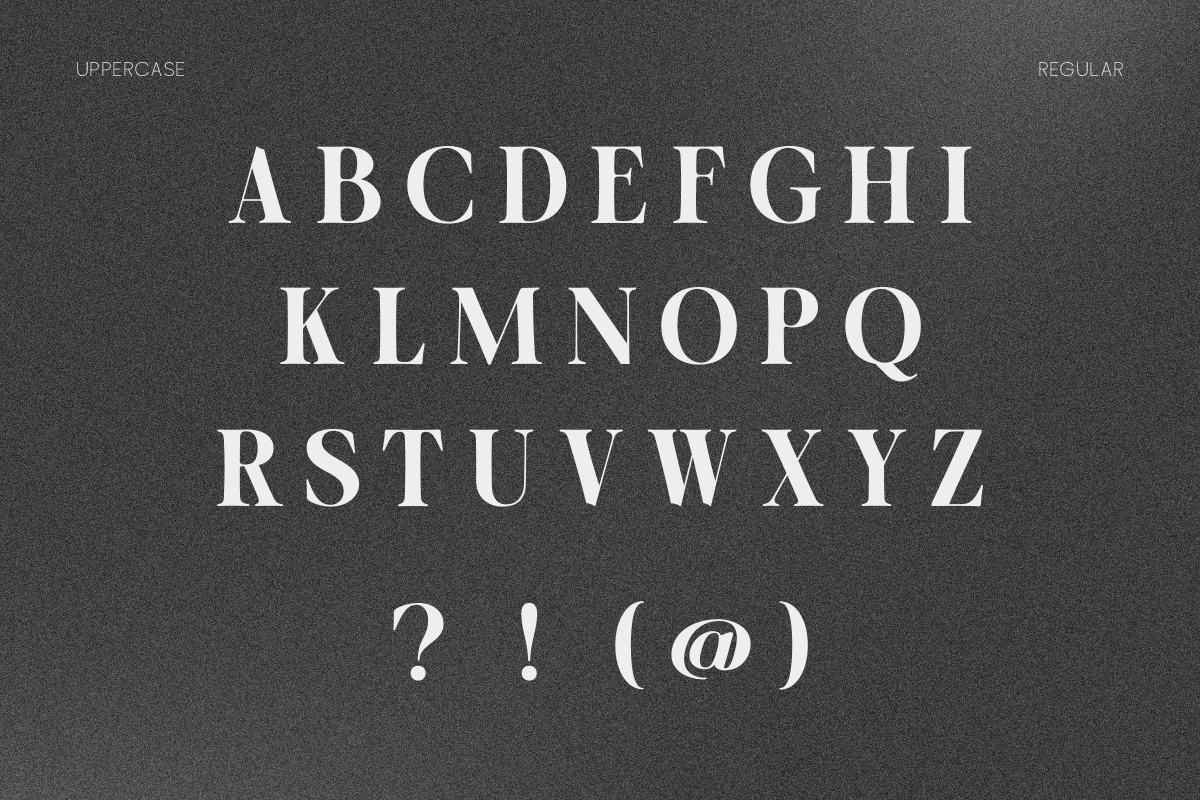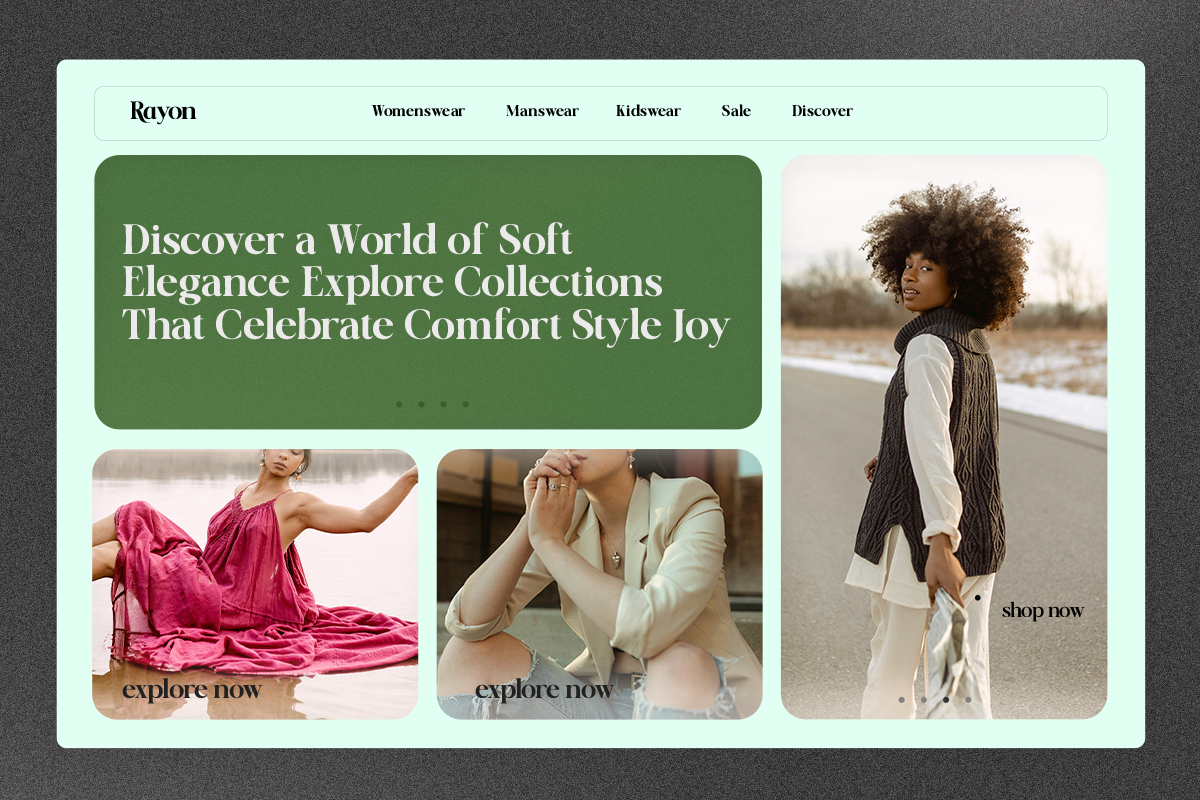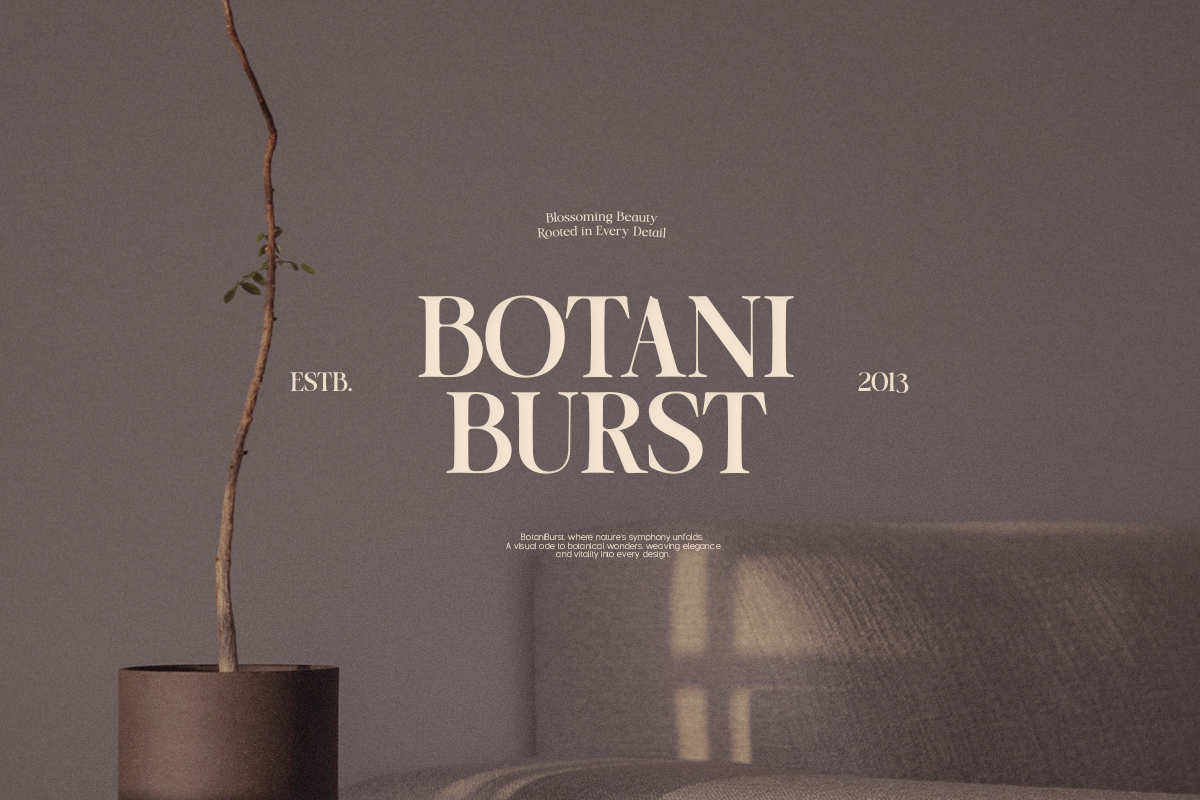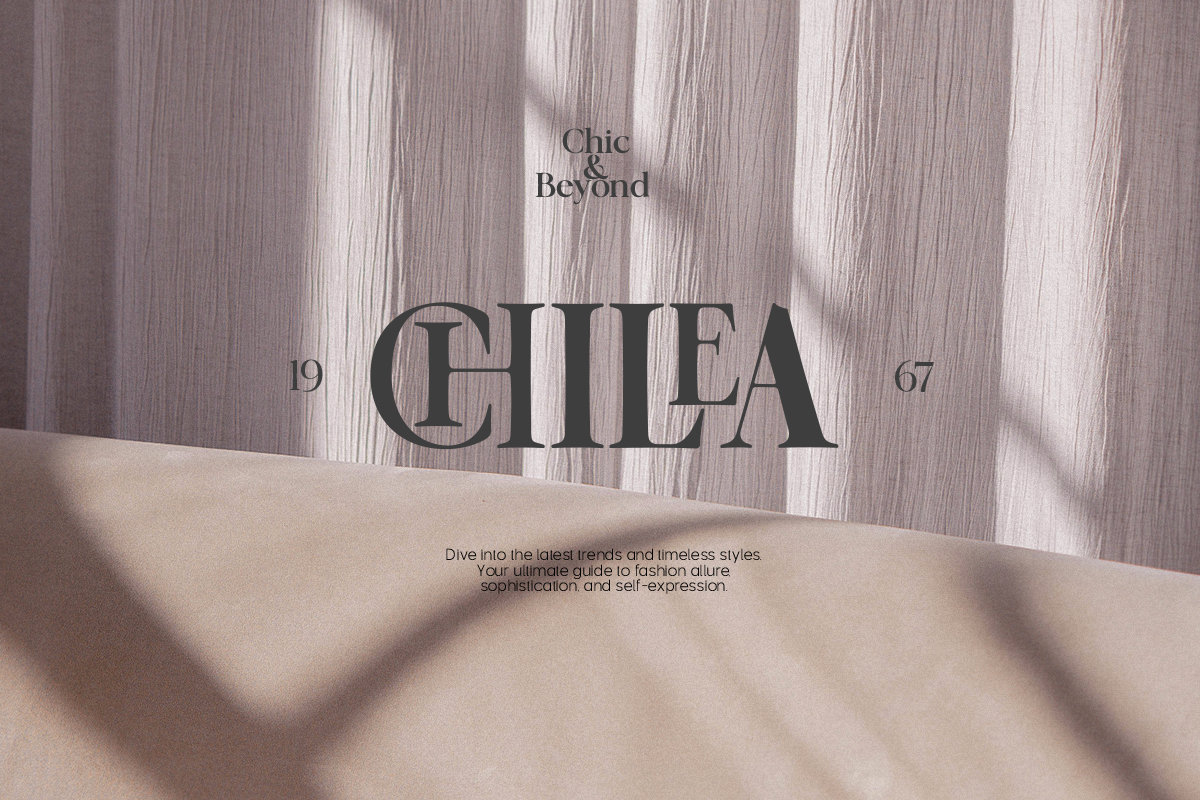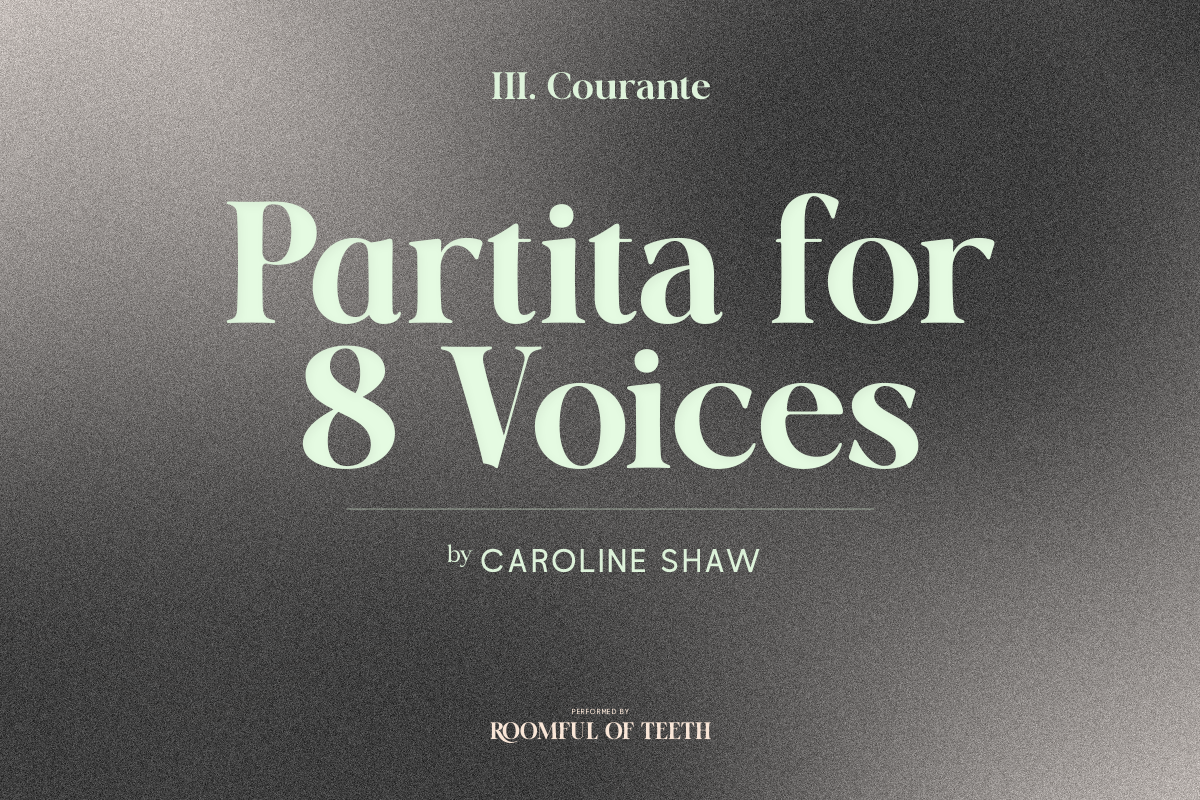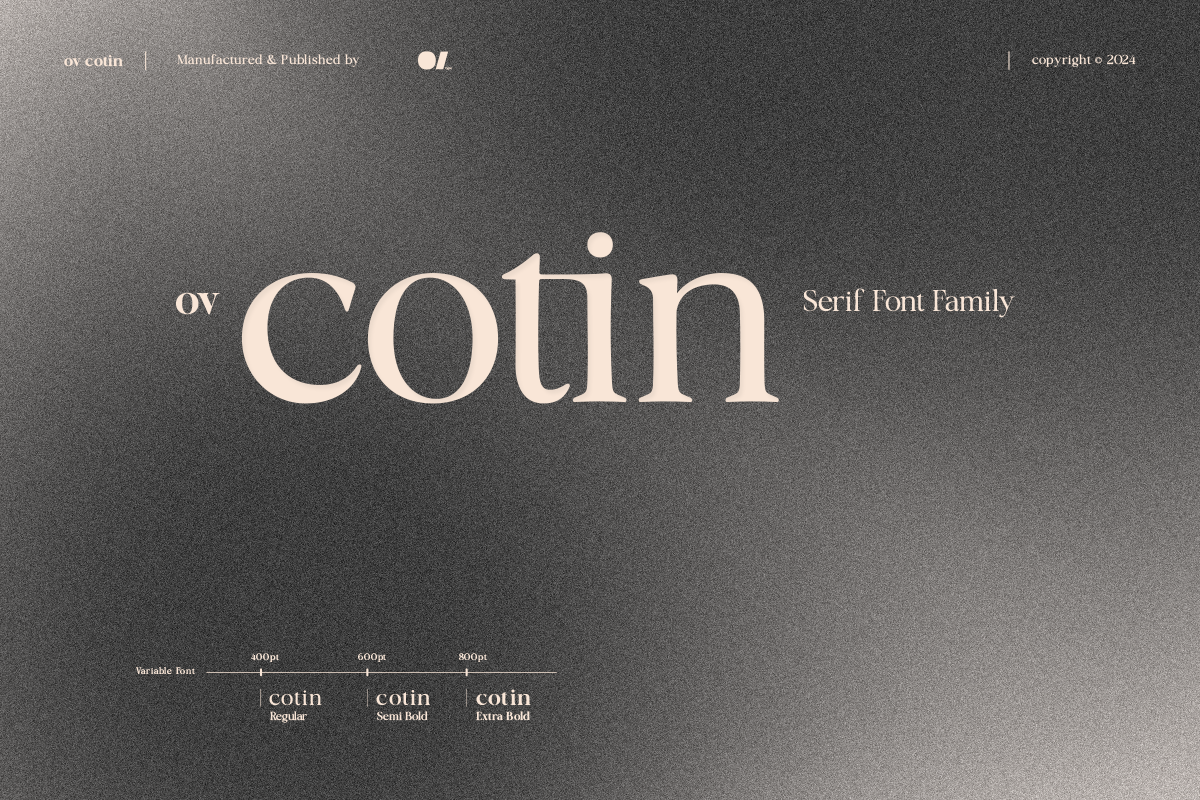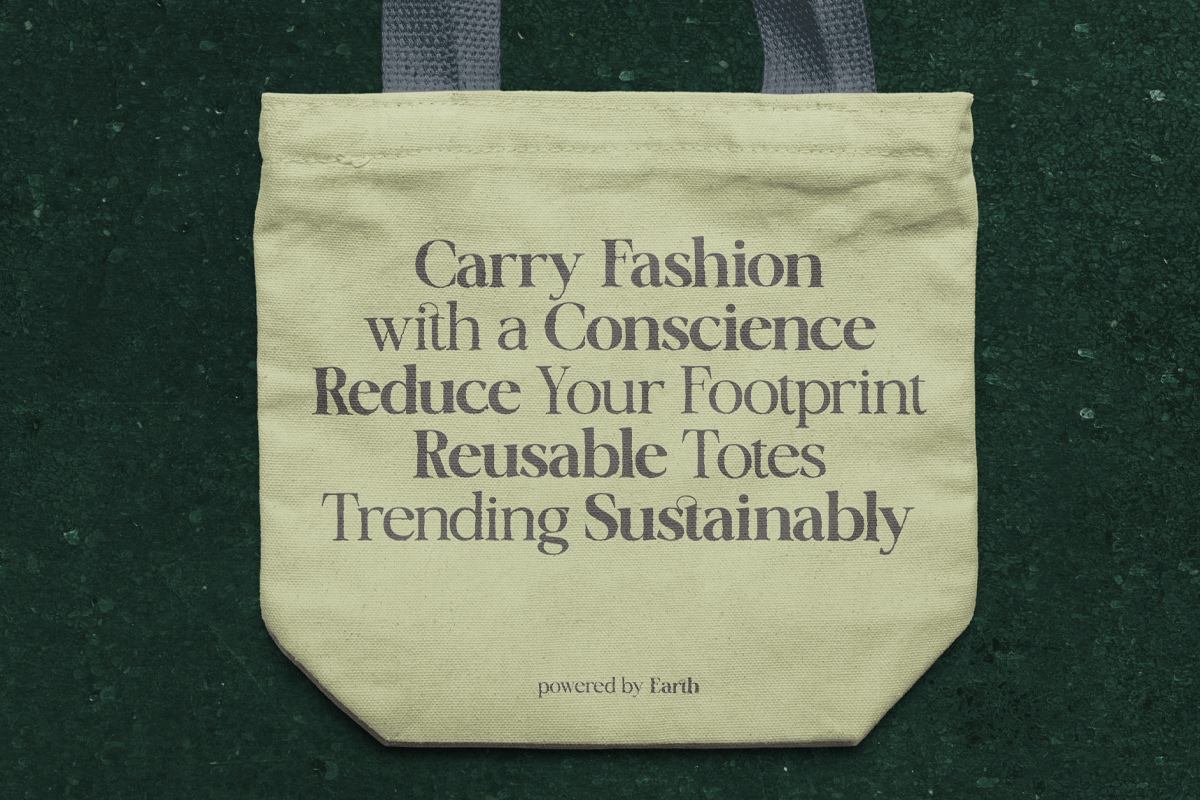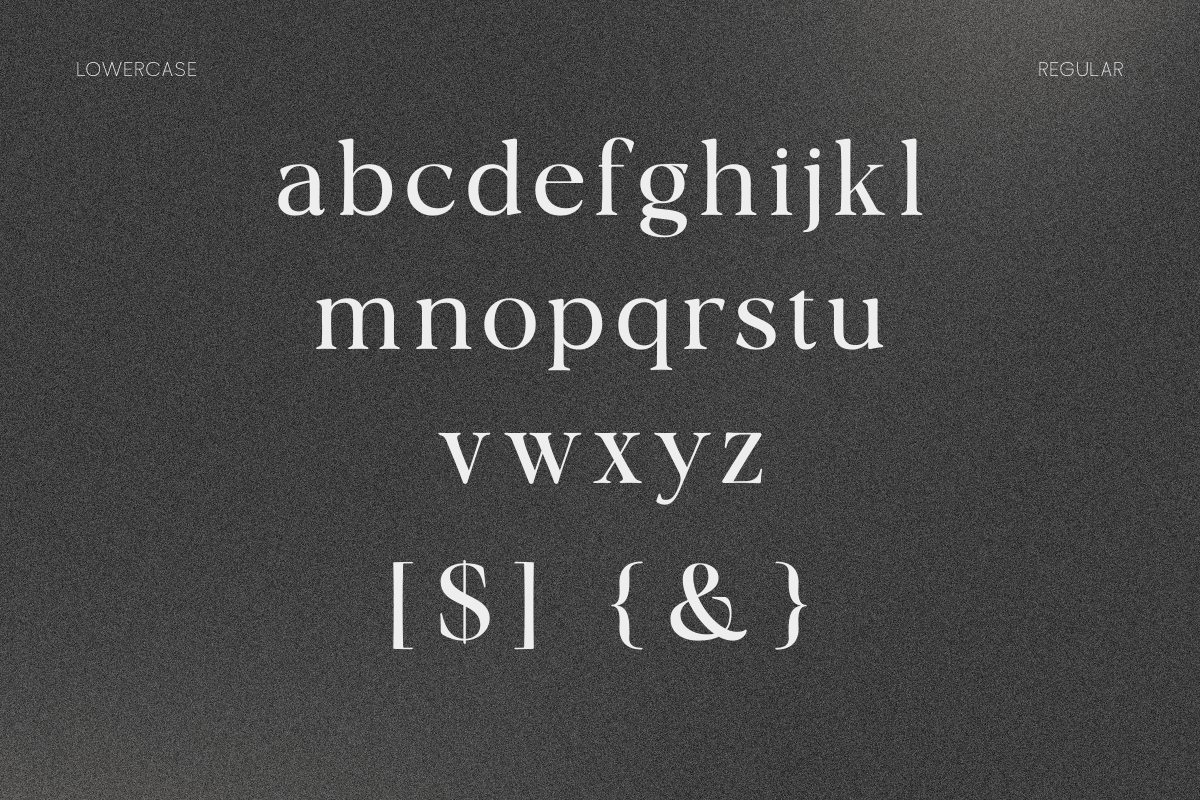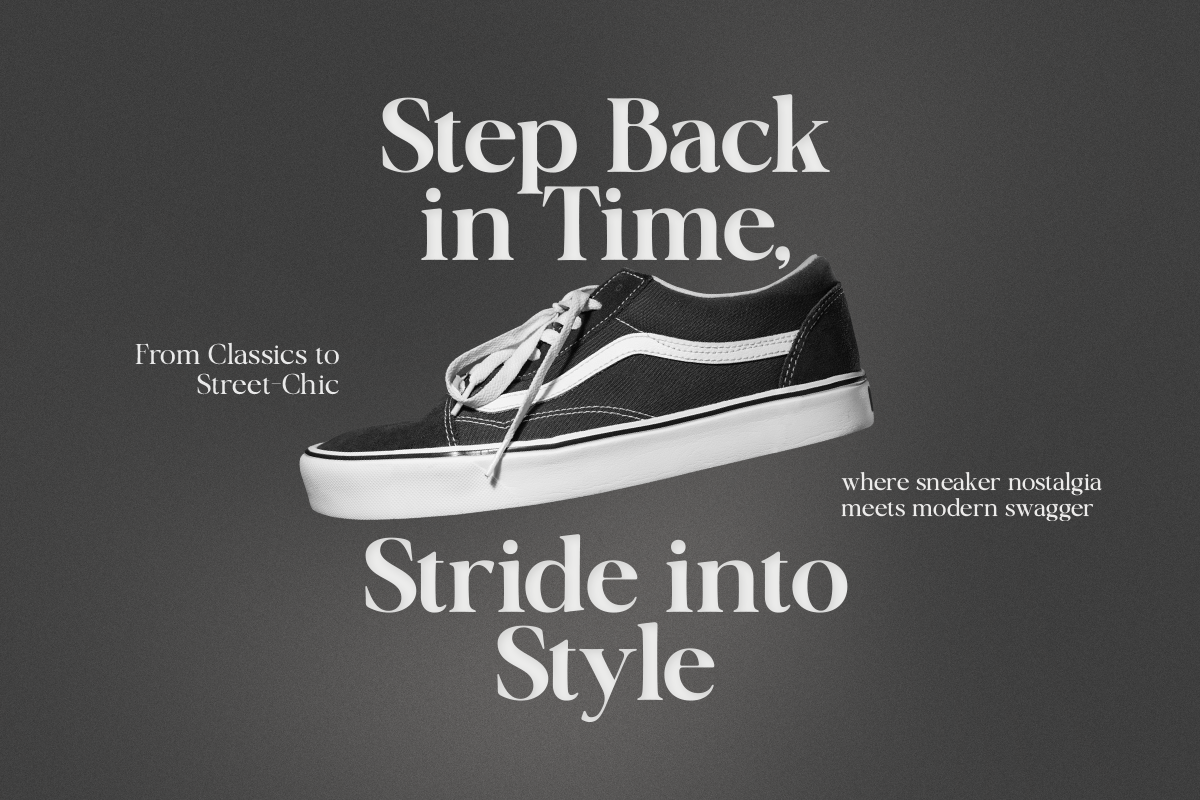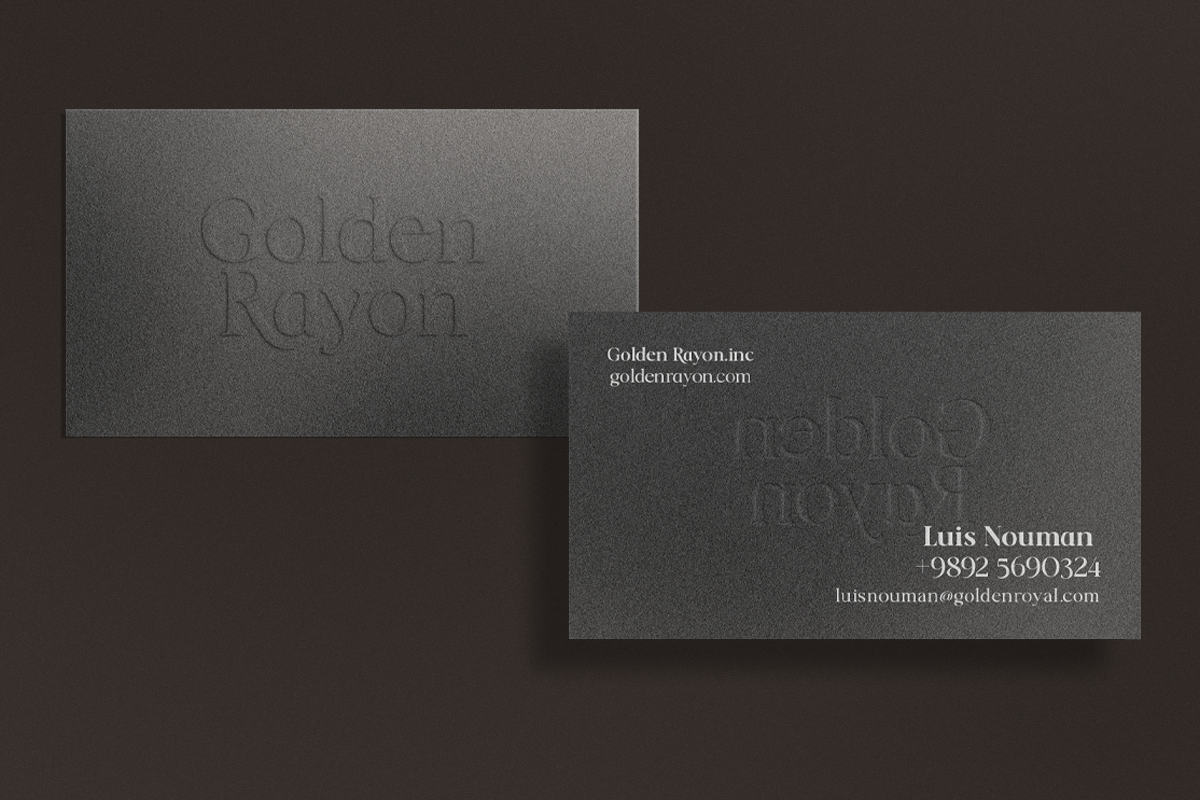
OV Cotin Serif Font Family
OV Cotin is a modern serif font that strikes a balance between classic elegance and contemporary design. Its updated version 2.000 boasts improved kerning for enhanced readability and includes additional alternates and ligatures for creative freedom. Suitable for both body text and display purposes, OV Cotin's versatile nature makes it ideal for a wide range of projects, from branding and wedding invitations to blogs and magazines. Its stylish and classy aesthetic adds a touch of sophistication to any design.